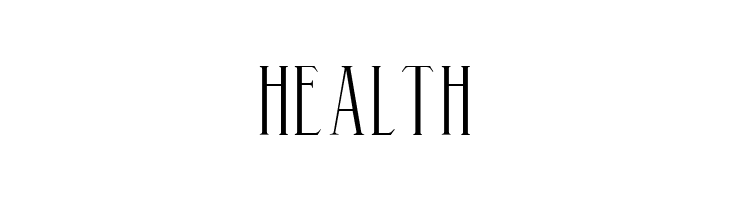
( Konstantine Studio - konstantinestudio.com/ )
An elegant serif font with tall, slender letterforms and sharp serifs.
( Konstantine Studio - konstantinestudio.com/ )
An elegant, flowing script font with a hand-drawn, calligraphic style.
( Ko Sliggers - www.dutchfonts.com )
A bold, sketch-like font with a playful, hand-drawn style.
( Kitch22 - Niall Kitching - www.kitch22.co.uk )
A bold, graffiti-inspired script font with a playful and energetic style.
( Kitch22 - Niall Kitching - www.kitch22.co.uk )
Bold, elongated slab serif font with high contrast and tight spacing.
( Kitch22 - Niall Kitching - www.kitch22.co.uk )
A bold, condensed font with tall, narrow letterforms and strong visual impact.
( Kirsten Louise - www.kirstenlouisedesign.com )
A lively, handwritten script font with elegant, flowing characters.
( Kirk Shelton - www.kirkshelton.com )
A geometric, futuristic font with angular lines and bold patterns.
( KineticPlasma Fonts - Robert Jablonski - cannotintospacefonts.blogspot.com )
A playful, hand-drawn font with a squared outline and whimsical style.
( Kimberly Geswein - kimberlygeswein.com )
A clean, rounded font with a handwritten style, perfect for educational use.